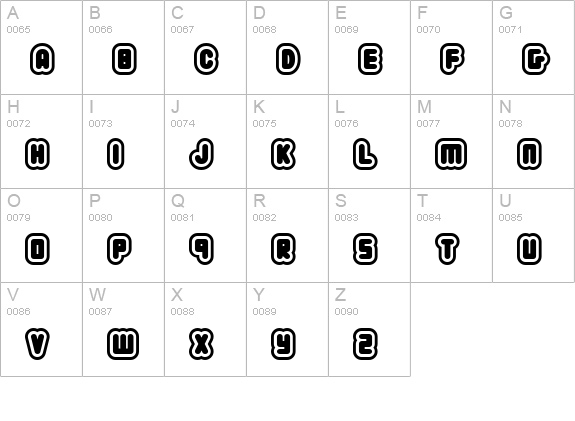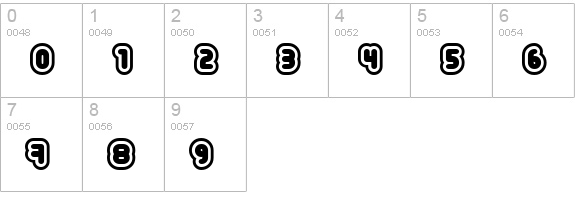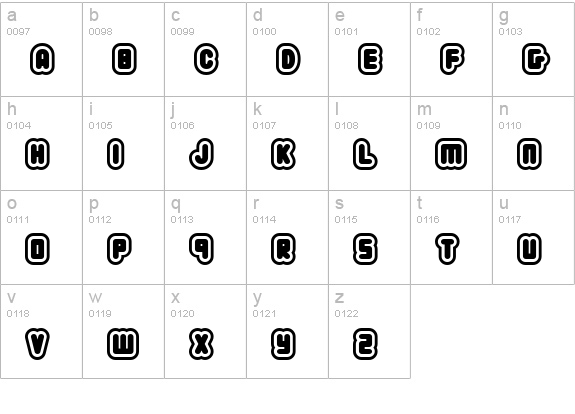
22 03 Font Details
Introducing 22 03 font, a modern and stylish typeface that is perfect for adding a touch of sophistication to your design projects. This versatile font features clean lines and a sleek appearance, making it ideal for a wide range of applications, from branding to editorial design. The best part about the 22 03 font is that it is completely free to download at FontsMarket.com. Yes, you read that right - this high-quality font can be yours at no cost, allowing you to elevate your designs without breaking the bank. Whether you're working on a website, poster, logo, or any other creative project, the 22 03 font is sure to impress with its elegant and professional look. Don't miss out on this fantastic opportunity to enhance your design arsenal with the 22 03 font. Download it today from FontsMarket.com and start creating stunning visuals that will captivate your audience.